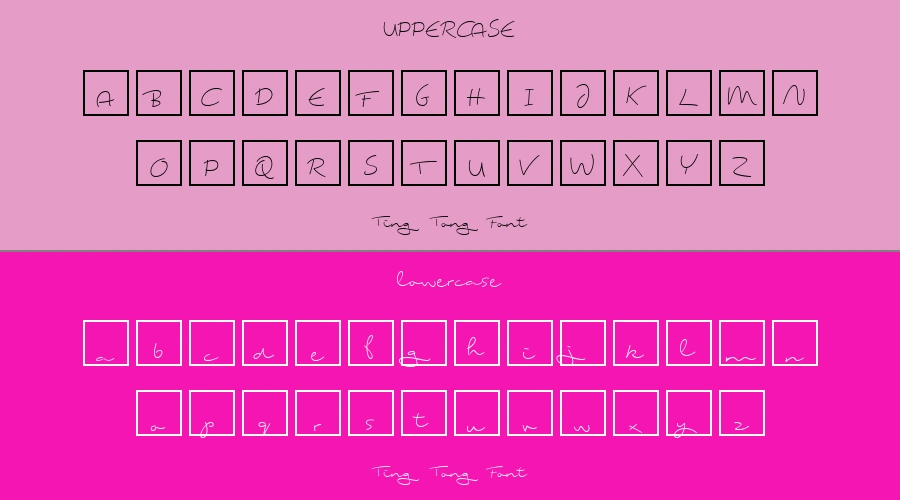
About Ting Tong Font
Designed with precision, Ting Tong Font merges original character with emotional connection in every character. This versatility makes it particularly effective for architectural plans, where consistency and industrial strength directly impact communication quality. Each letterform demonstrates meticulous craftsmanship.
Technical excellence shines through elements like concave curves and case-sensitive forms, enhancing typographic versatility. In warning labels settings, Ting Tong Font proves its worth through superior color consistency. The thoughtful execution of tail length and character ensures professional results.